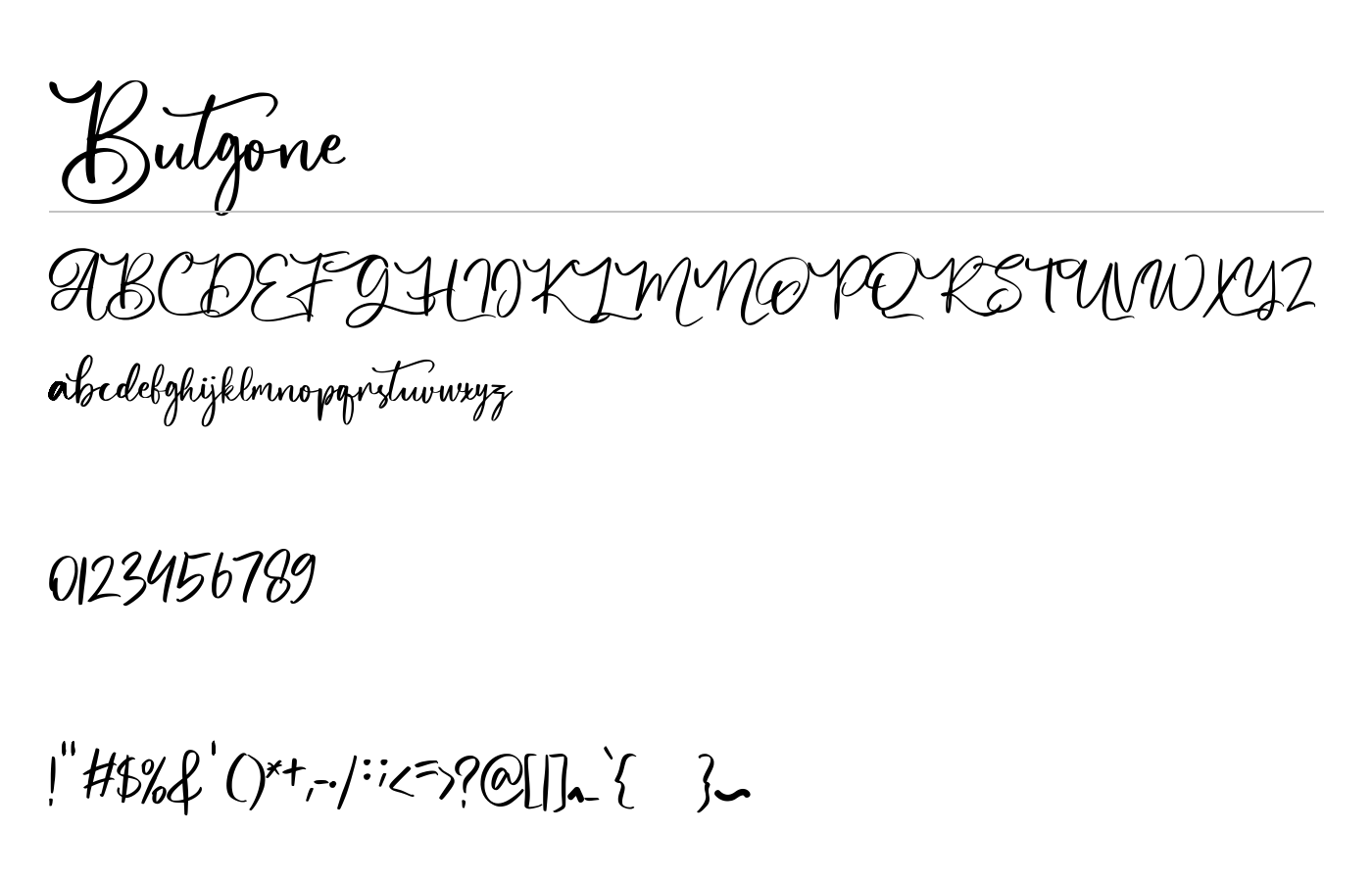
Butgone is a stylish handwritten script font with elegant, flowing strokes and a lively, personal touch. Its thin, slightly varied lines and playful curves give it a charming, sophisticated feel, making it ideal for branding, invitations, and creative projects that need a warm, artistic voice. This font works beautifully for designs that seek a blend of casual elegance and modern flair.
Butgone Font
About Butgone Font
| Font family | Butgone Font |
| Designer | Vultype Co |